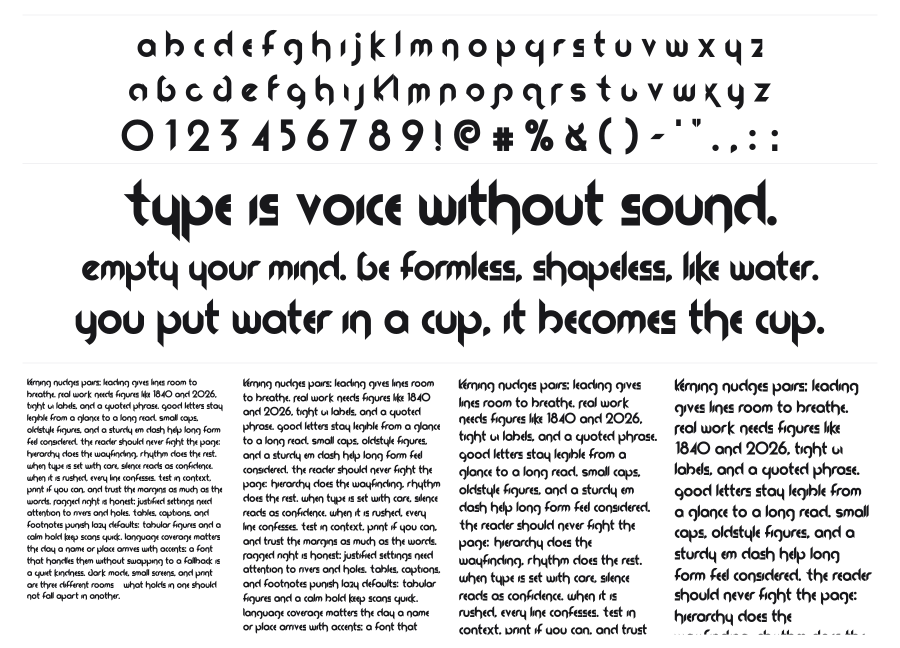
Fireflies
Fireflies is a bold display sans with a distinctive construction built on thick rounded strokes sliced through with sharp angular cutouts at joints and terminals. The result sits somewhere between 1970s psychedelic type and futuristic sci-fi lettering, with a raw, handcrafted energy. Strong at large sizes for posters, titles, and logos in music, gaming, and streetwear contexts.